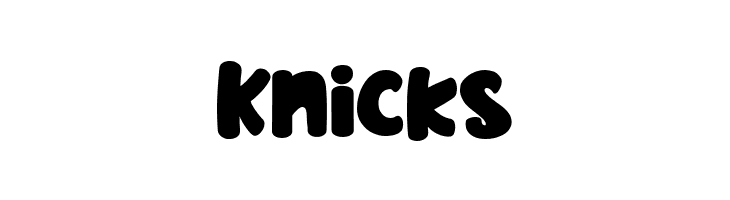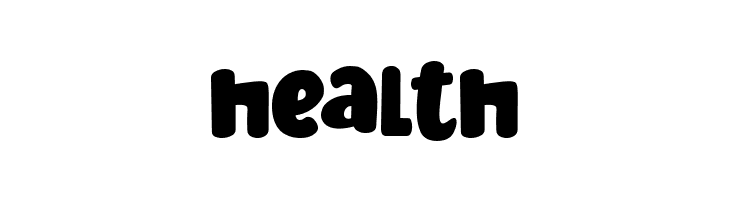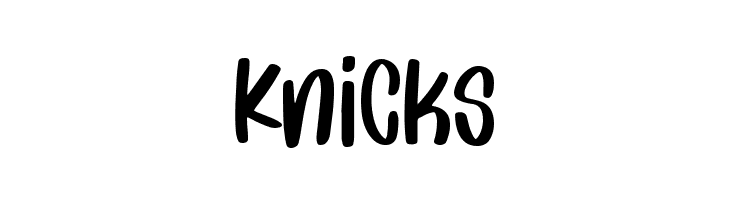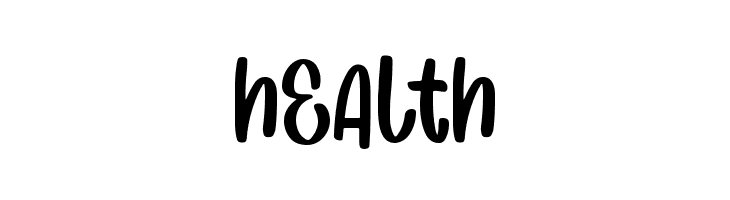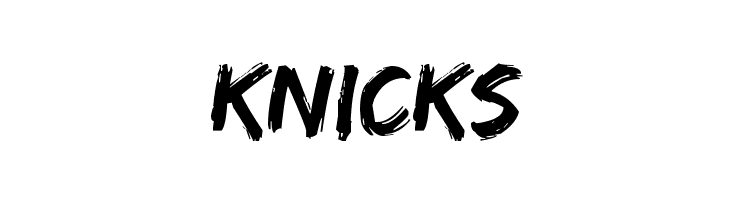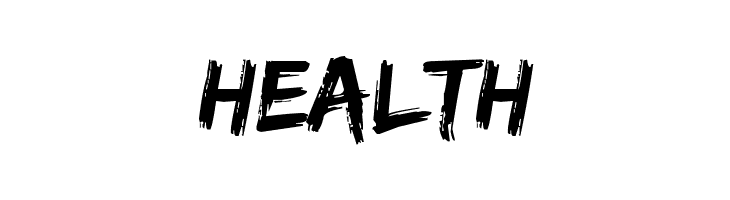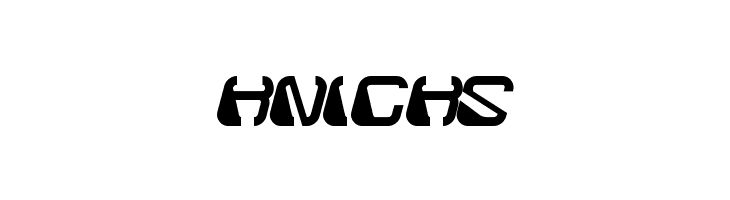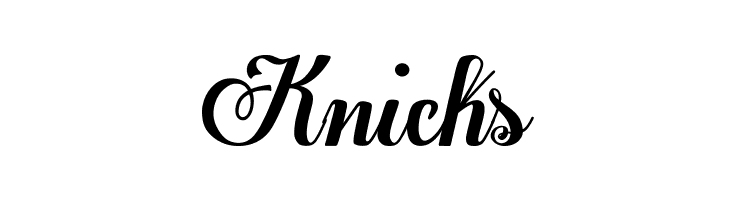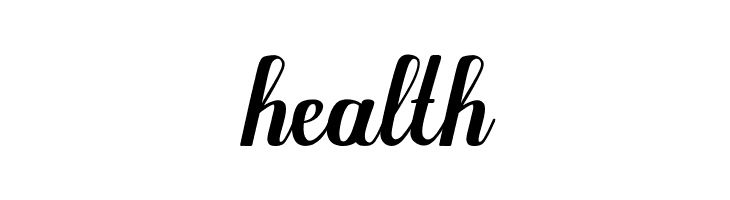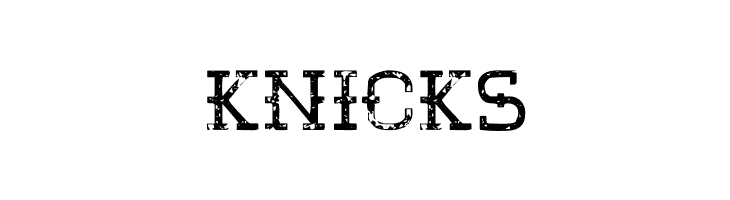
A bold, playful font with rounded, hand-drawn style characters.
Playful and bold handwritten font.
A bold, brush-style font with dynamic, textured strokes.
A modern sans-serif font with geometric shapes and uniform strokes.
An elegant script font with flowing, ornate swashes and high contrast strokes.
A bold, distressed font with a vintage, grunge style.
An edgy, grungy font with jagged, irregular strokes and a rebellious vibe.
A bold, futuristic font with angular, geometric shapes and a mechanical feel.